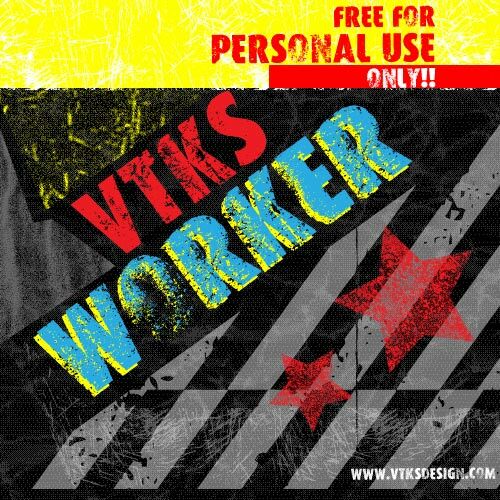
VTKS Worker by Douglas Vitkauskas is a free eroded display font with massive, tightly packed capitals and a rough industrial surface. Deep chips and scattered speckling break across the broad strokes, giving the lettering the look of battered ink or weathered signage.
It suits designers working in punk, skate, and underground music scenes. Posters and album covers can use its dense shapes to establish a hard, abrasive voice. In editorial design, it can turn cover line into distressed artwork.